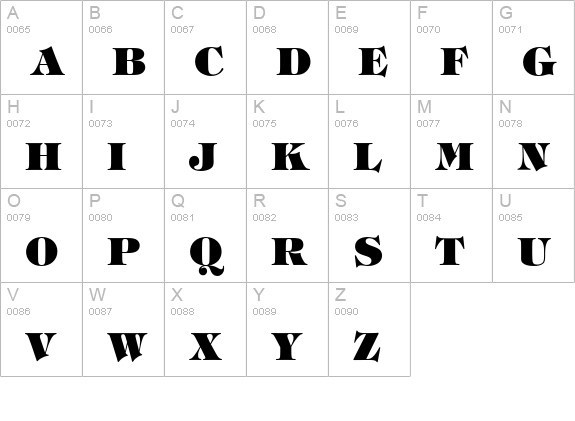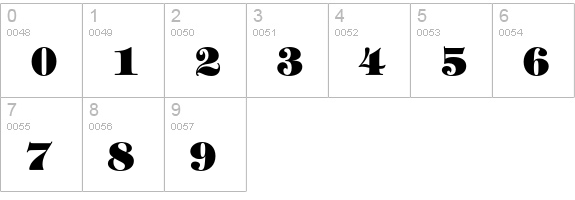
TiffanyEF-Heavy is a heavy, high-impact variant in the TiffanyEF typeface family \xE2\x80\x94 well suited to high-impact headlines, posters, and display advertising.
TiffanyEF-Heavy is a stunningly bold and impactful font that will make your designs stand out from the crowd. With its strong and commanding presence, this typeface is perfect for headlines, titles, and any other design element that requires attention-grabbing typography. The thick and weighty strokes of TiffanyEF-Heavy exude an air of confidence and power, making it ideal for projects that demand a sense of authority and boldness. Whether you're designing a poster, a logo, or a banner, this font will make a lasting impression on your audience. Not only does TiffanyEF-Heavy possess visual impact, but it also showcases elegance and sophistication. The careful balance between its strong lines and graceful curves creates a harmonious blend that is visually pleasing and captivating. One of the best aspects of TiffanyEF-Heavy is that it is freely available to download at FontsMarket.com. This means that you can enhance your design projects with this extraordinary font without any cost, making it a valuable asset for both personal and commercial use. Don't miss out on the opportunity to elevate your designs with this remarkable typeface. So, if you're looking to make a bold statement and captivate your audience with a font that exudes power, elegance, and absolute presence, look no further than TiffanyEF-Heavy. Download it for free at FontsMarket.com and let your designs shine with its commanding typography.